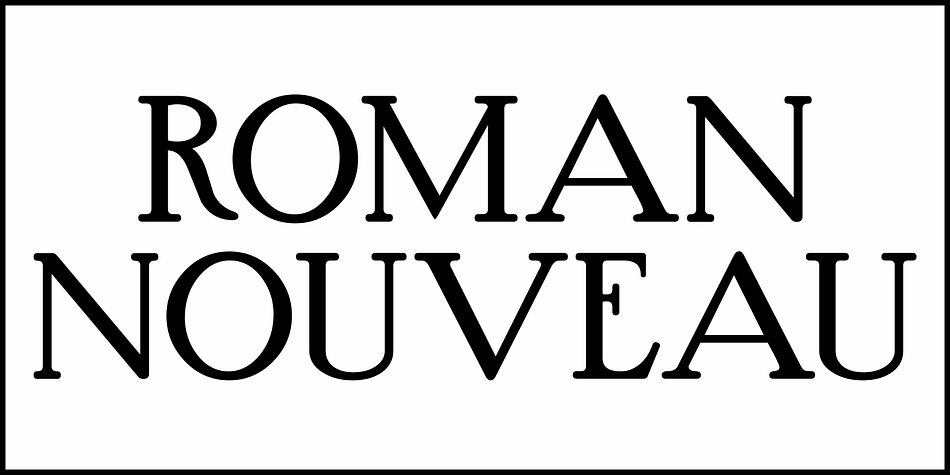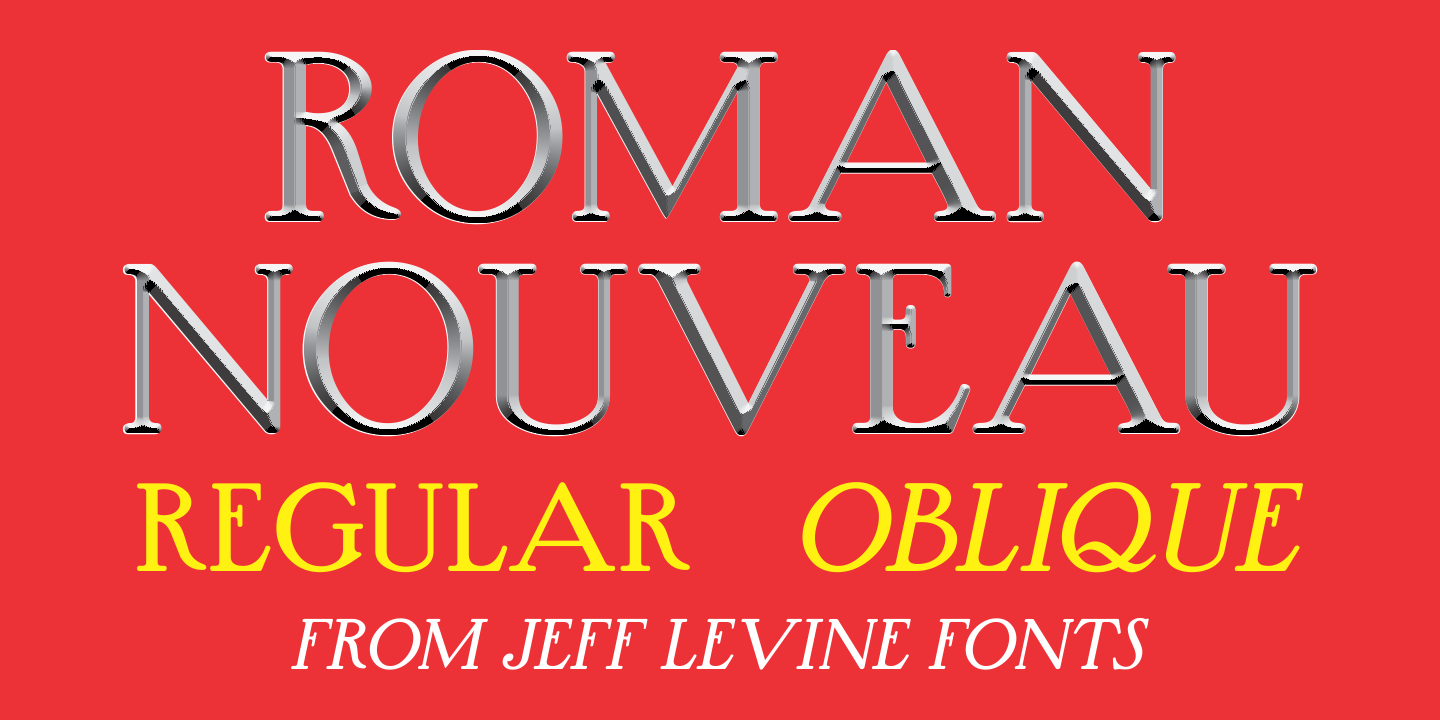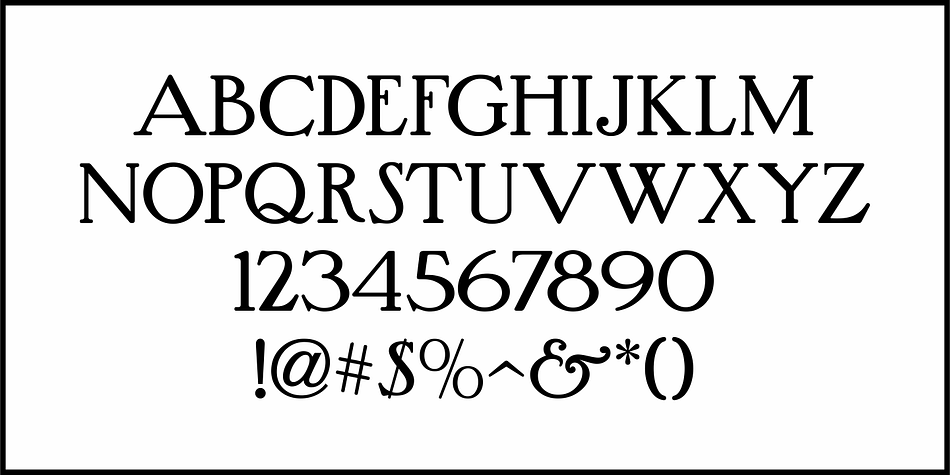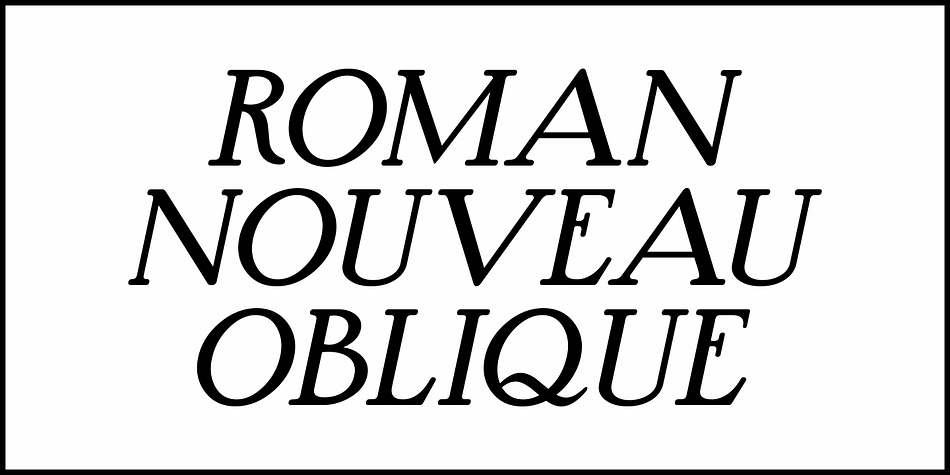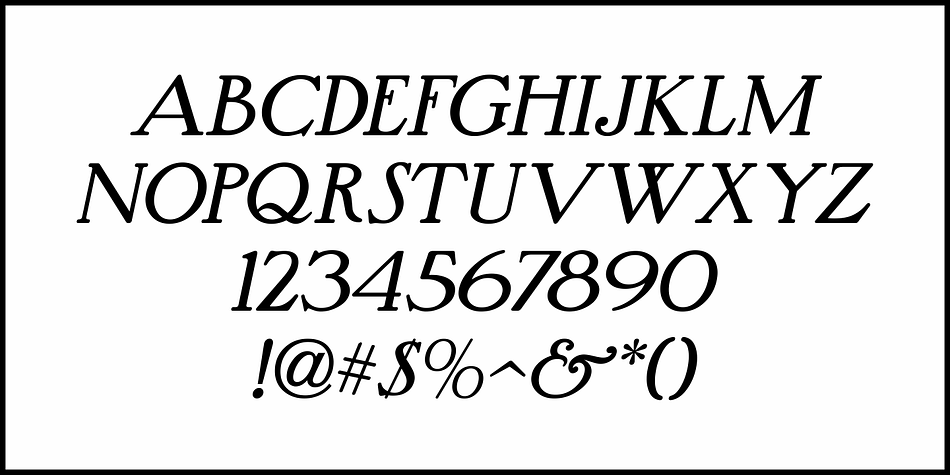
ROMAN NOUVEAU JNL
Designed by Jeff Levine, Roman Nouveau JNL is an art nouveau and display serif font family. This typeface has two styles and was published by Jeff Levine Fonts.
In the 1904 book “Letters & Lettering” by Frank C. Brown is a page of Roman style upper case letters entitled “Modern American Capitals – after Will Brady”.
The slab serif, Art-Nouveau-influenced alphabet inspired a digital version.  Roman Nouveau JNL, is available in both regular and oblique versions.